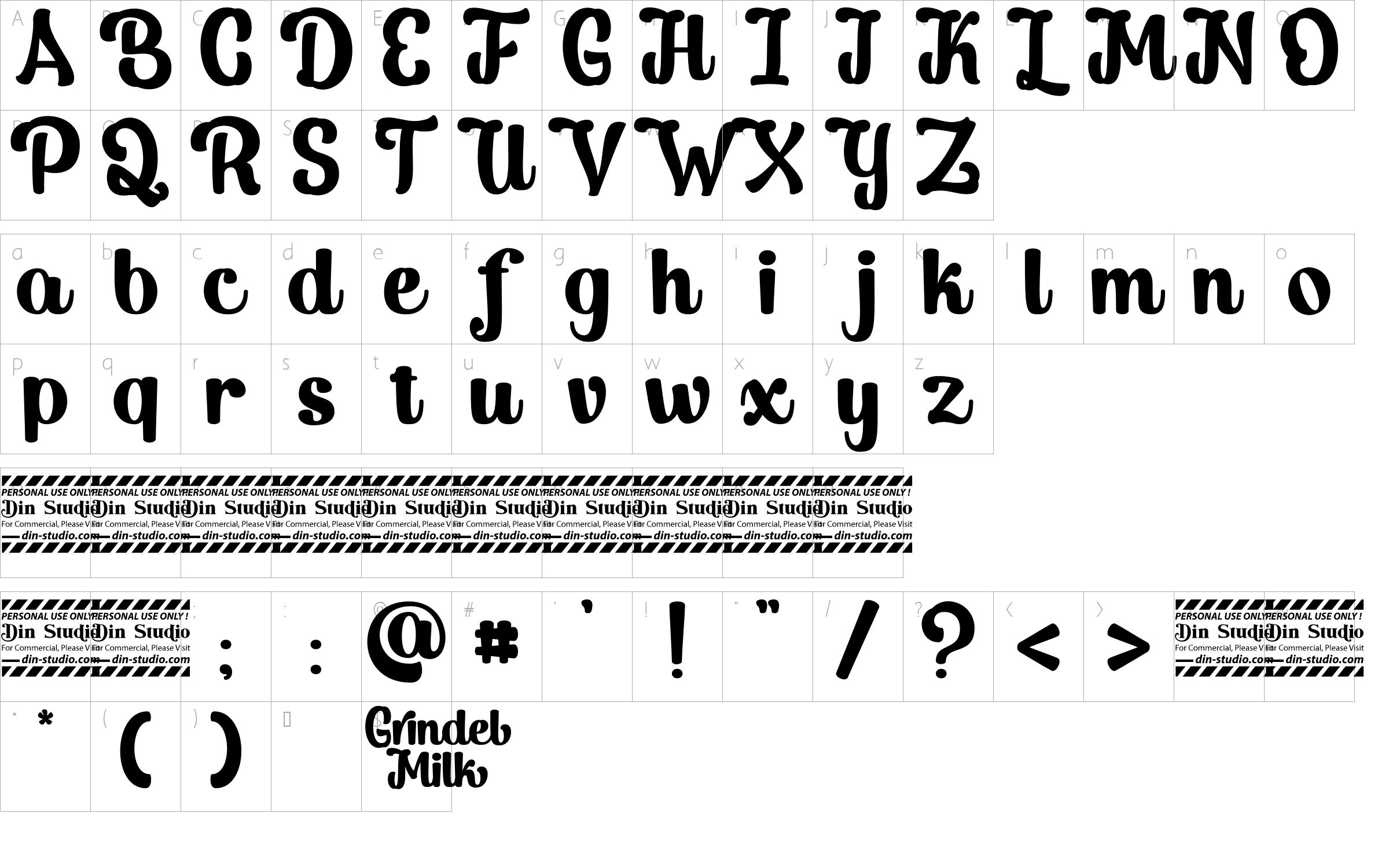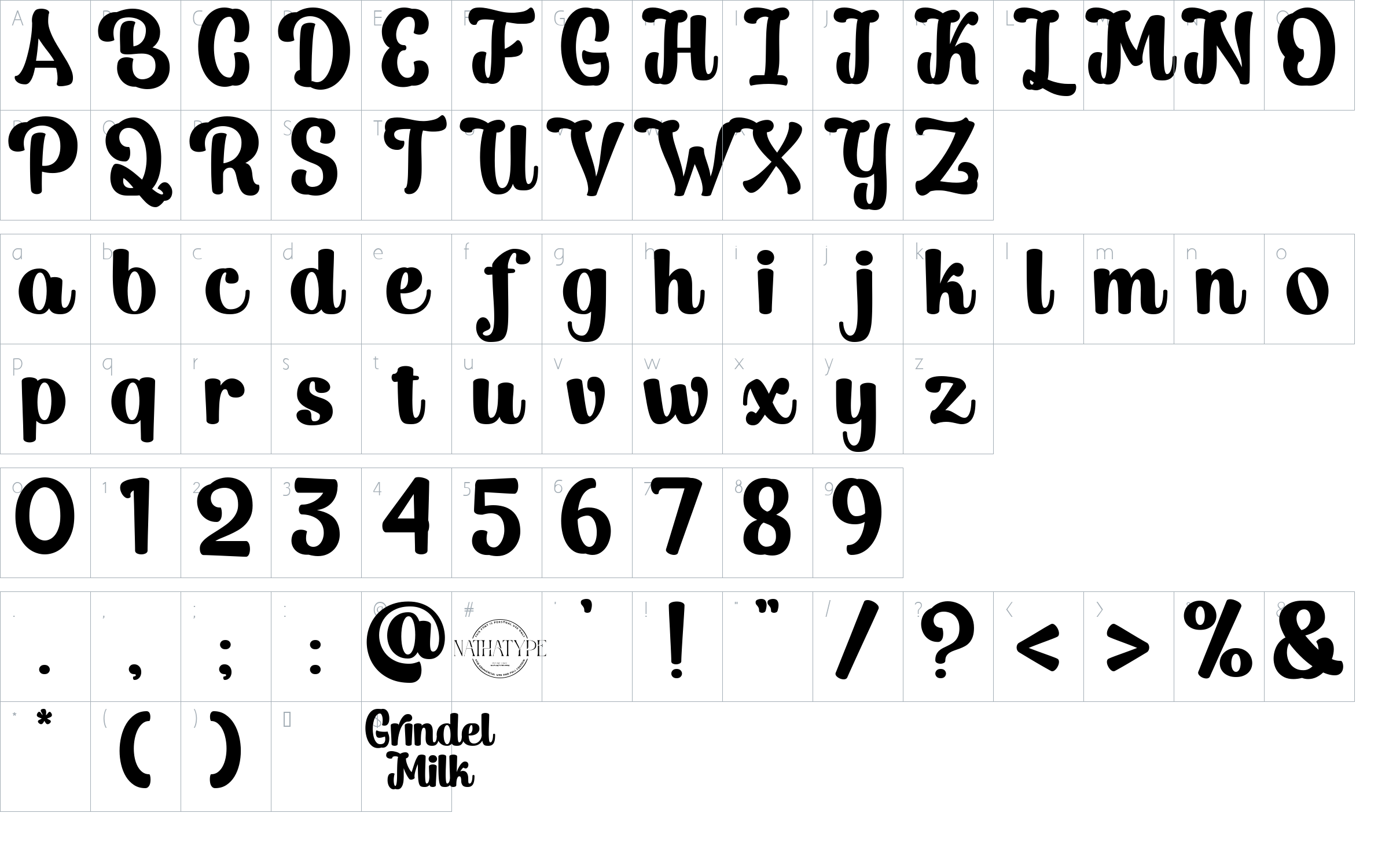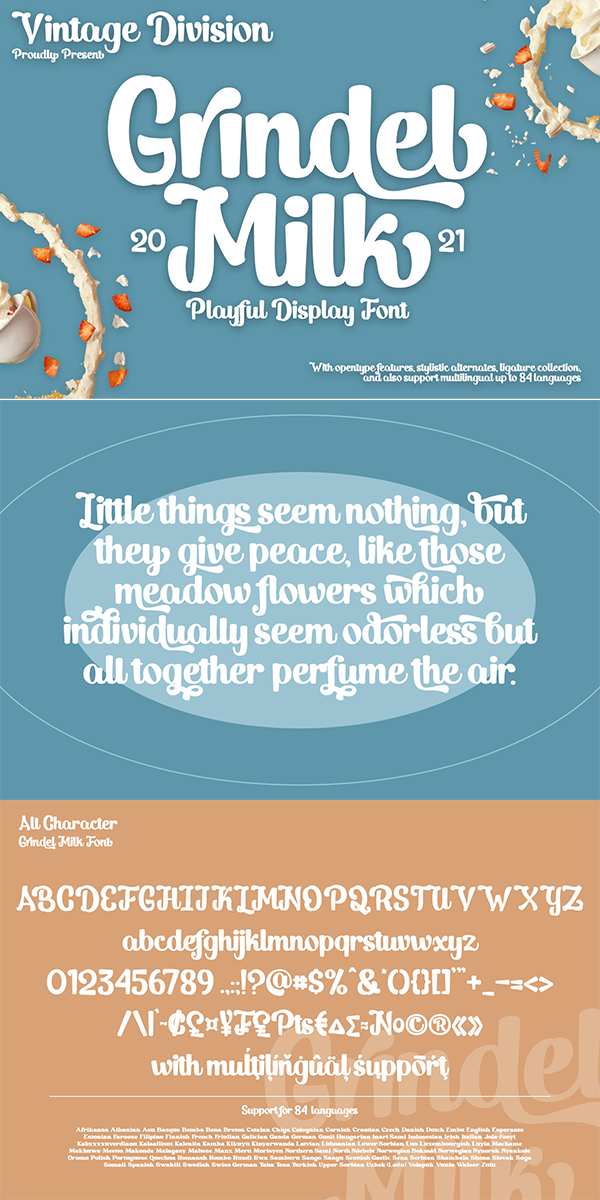
Grindel Milk Font
Grindel Milk – A Display Font
Grindel Milk is a display font designed to bring your branding to life and add a touch of elegance, cheer, and style. We hope you can maximize your designs with this font so that you will be able to transfer the perfect idea to your audiences or clients. This is the best choice for branding projects, book/magazine covers, fashion designs, quotes, packagings, or even stylish texts overlying any background images.